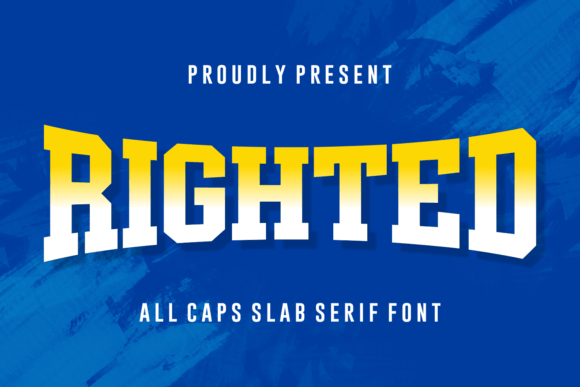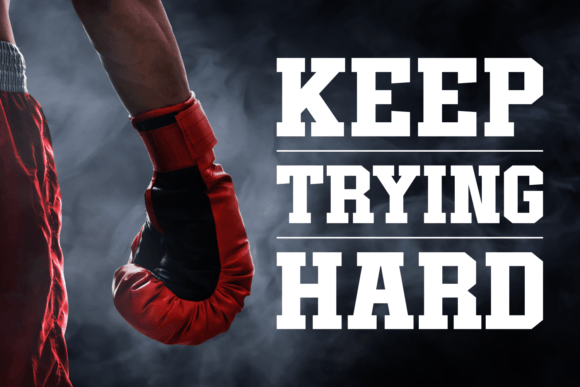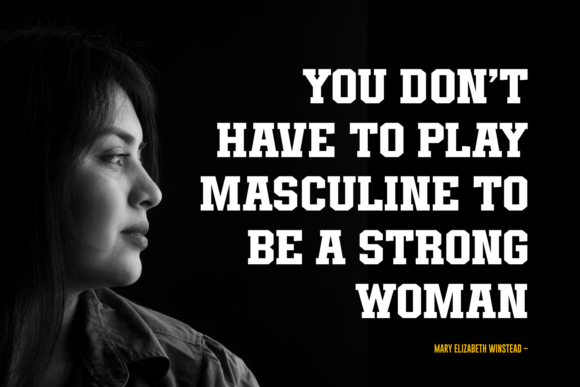
Righted Font
Righted is an all-caps slab serif font that exudes strength, stability, and a touch of modern sophistication. This typeface features bold, blocky characters with prominent serifs, making it a robust and impactful choice for various design projects. Its all-caps format ensures uniformity and strength, while the slab serifs add a touch of sophistication and clarity. Whether used for headlines, branding, or signage, “Righted” delivers a powerful visual impact that commands attention and communicates reliability and confidence.